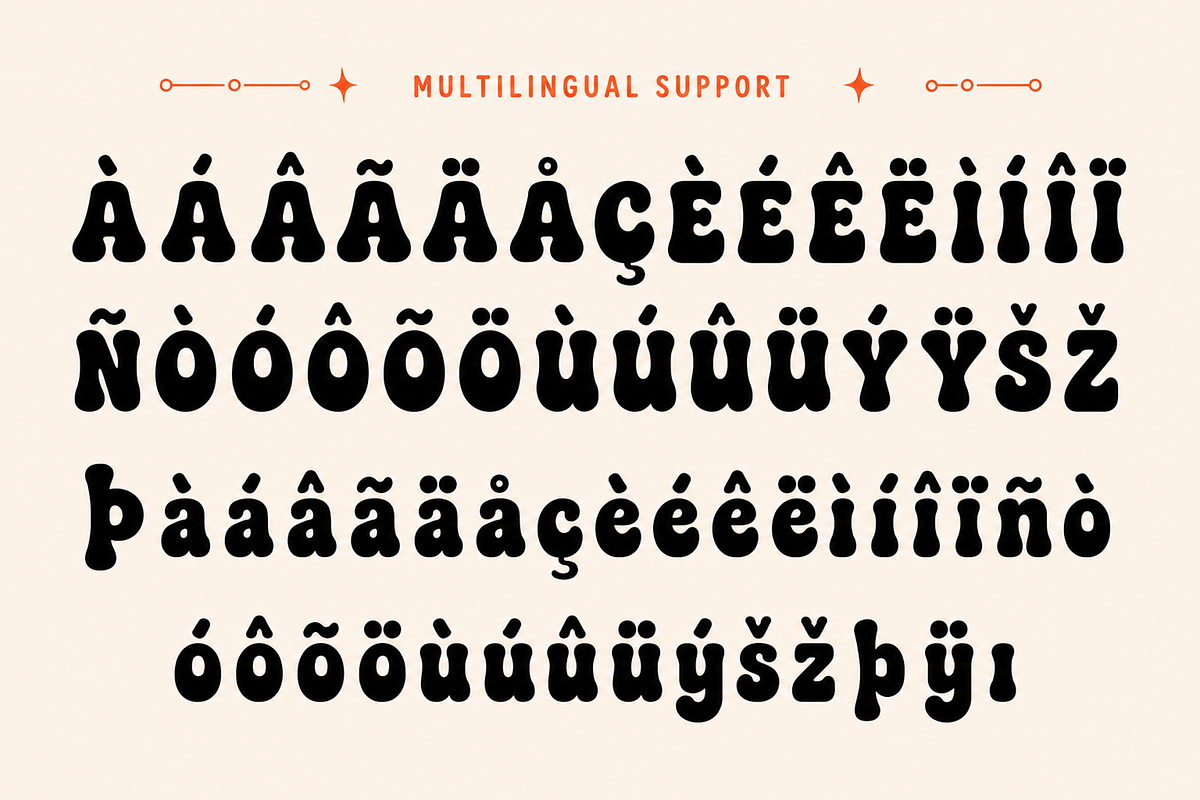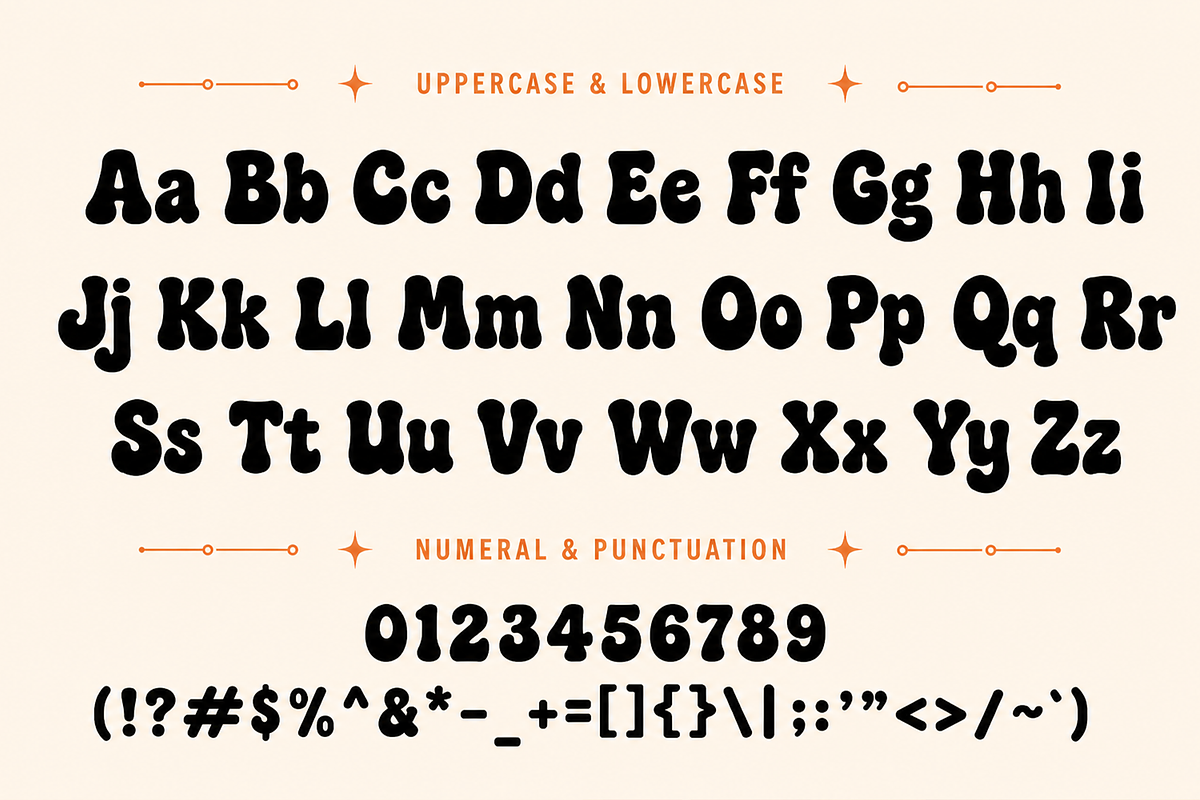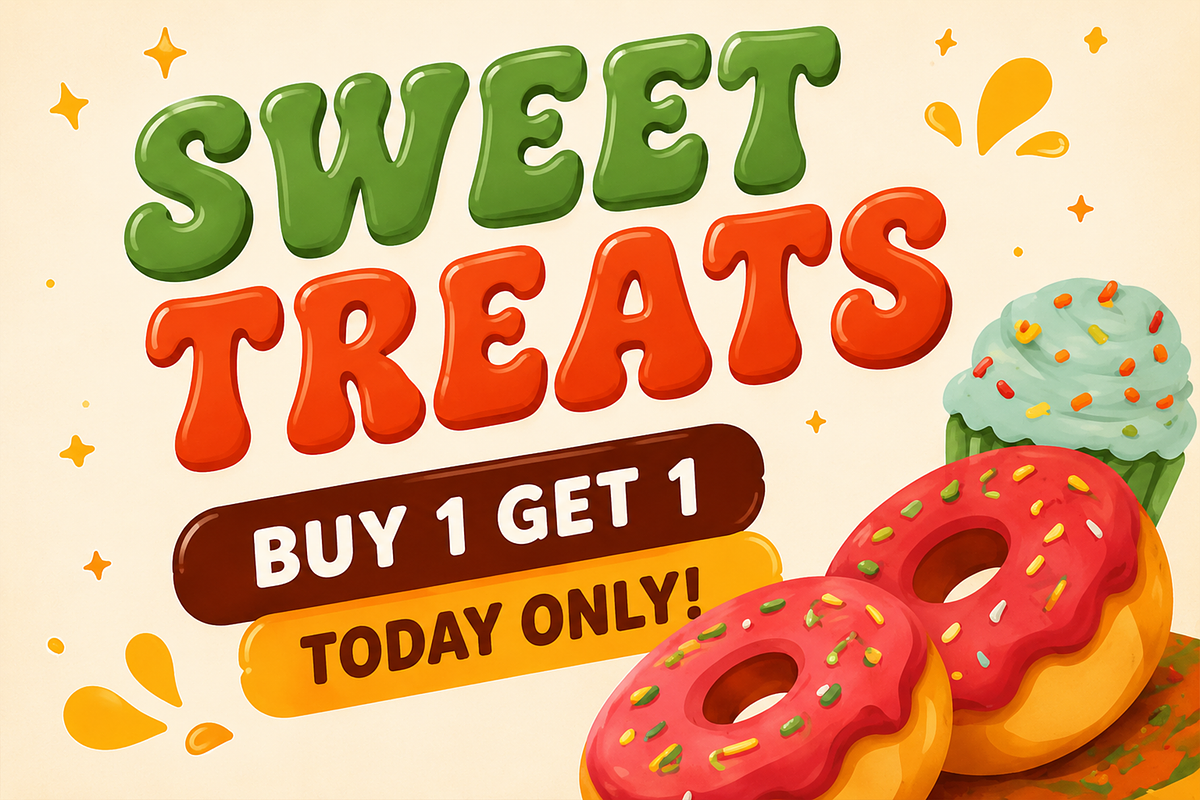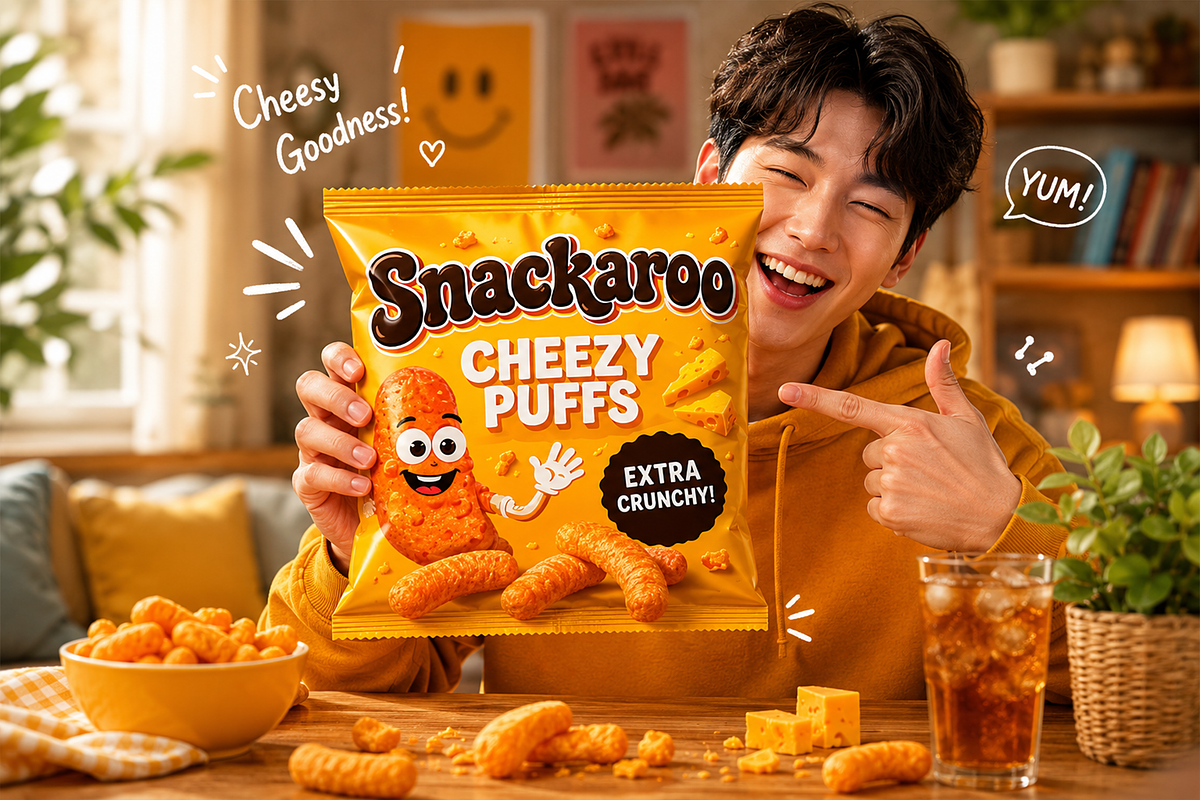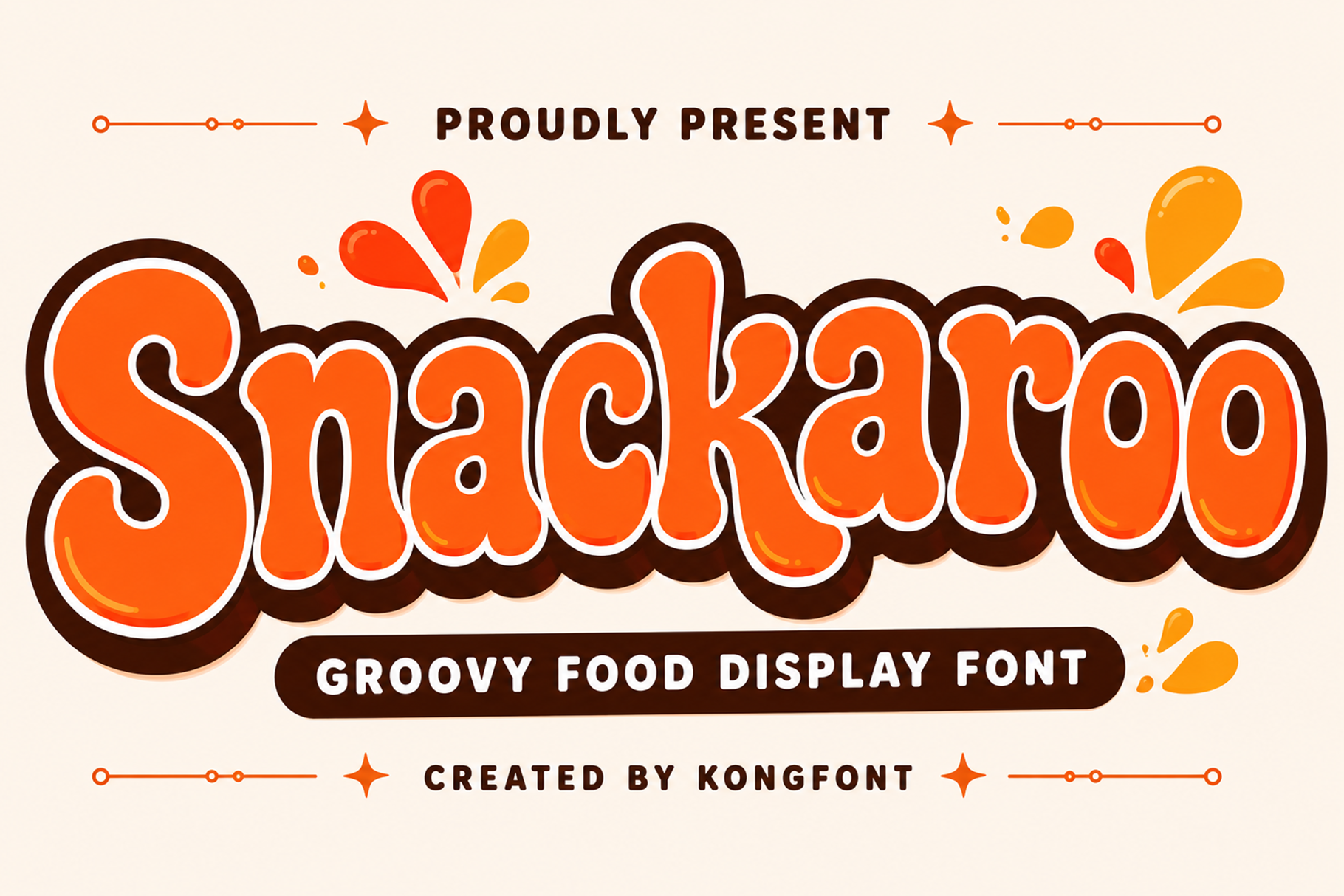
Snackaroo - Groovy Display Font
Snackaroo is a groovy display font bursting with retro charm, playful energy, and bold character. Inspired by the vibrant typography of the ‘60s and ‘70s, Snackaroo features chunky letterforms, smooth curves, and a fun loving style that instantly brings warmth and personality to your designs.
Designed to be both expressive and readable, Snackaroo includes uppercase and lowercase letters, numerals, punctuation, and multilingual support, making it versatile for a wide range of print and digital projects. Its groovy aesthetic is ideal for designers looking to create fun, nostalgic, and memorable typography.